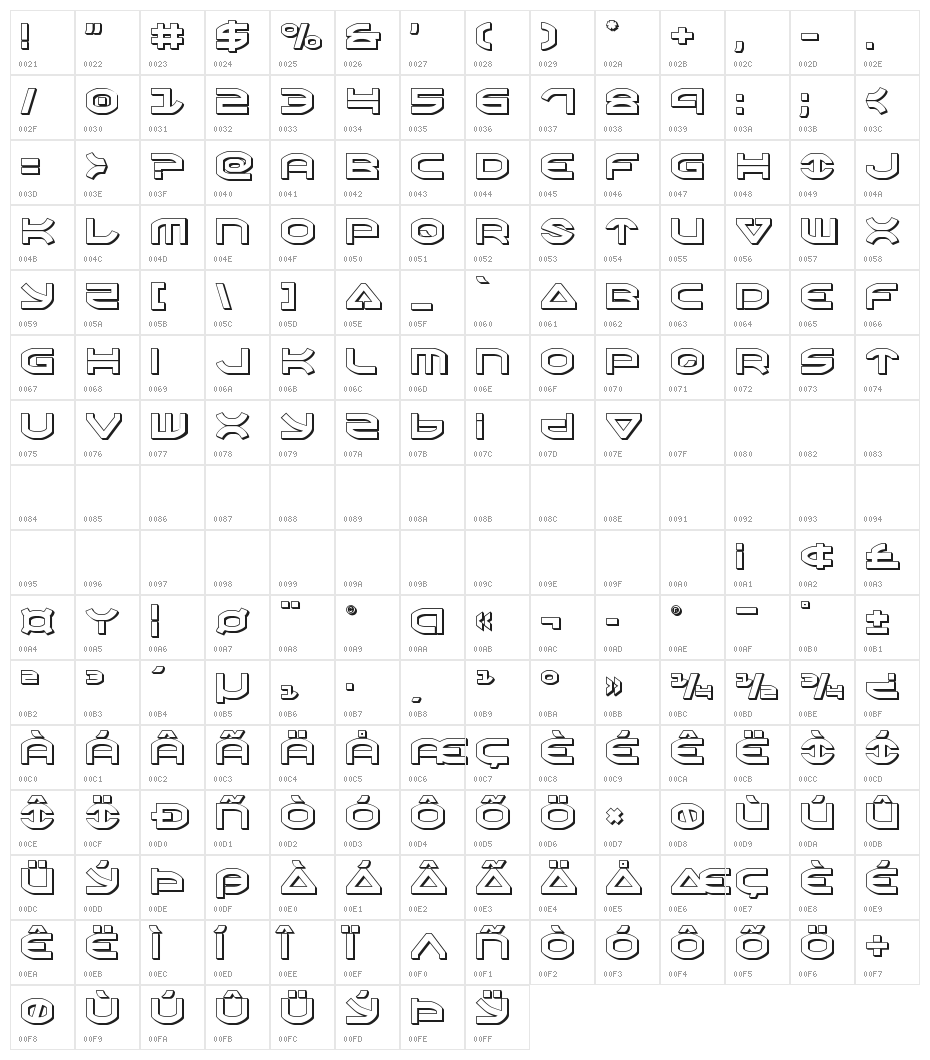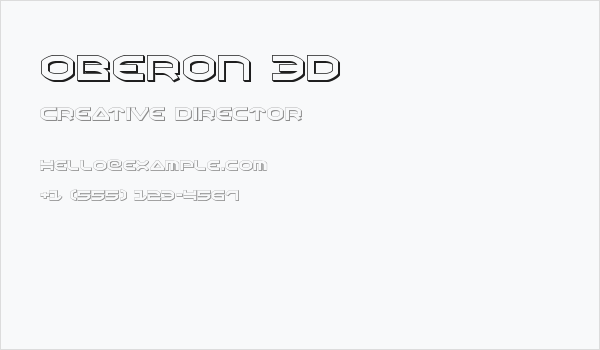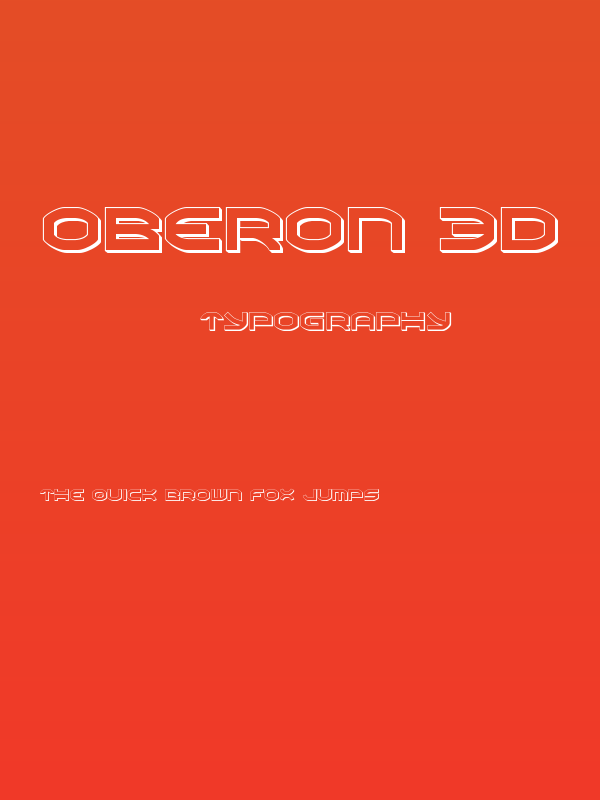
Oberon 3D Font
Oberon 3D Description
This font features a bold, futuristic design with a three-dimensional effect. The characters are outlined with a thick border, giving them a strong presence. The geometric shapes and angular lines create a modern and tech-inspired aesthetic. Each letter is distinct, with unique cutouts and angles that add to the overall dynamic appearance. The numbers and special characters maintain the same style, ensuring consistency throughout. This font is ideal for projects that require a bold and eye-catching look, such as technology branding, sci-fi themes, or modern digital interfaces.
| Proposed Projects | Ideal for technology branding, sci-fi themes, modern digital interfaces, and eye-catching headlines. |